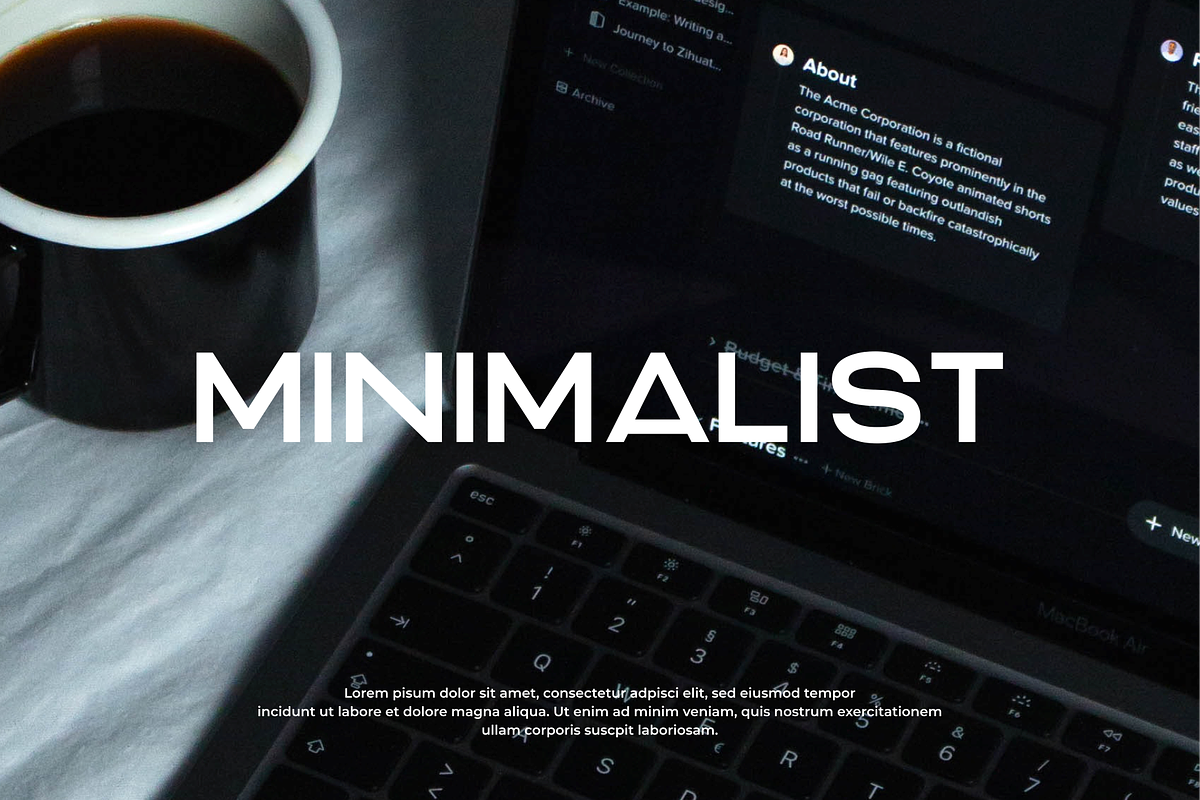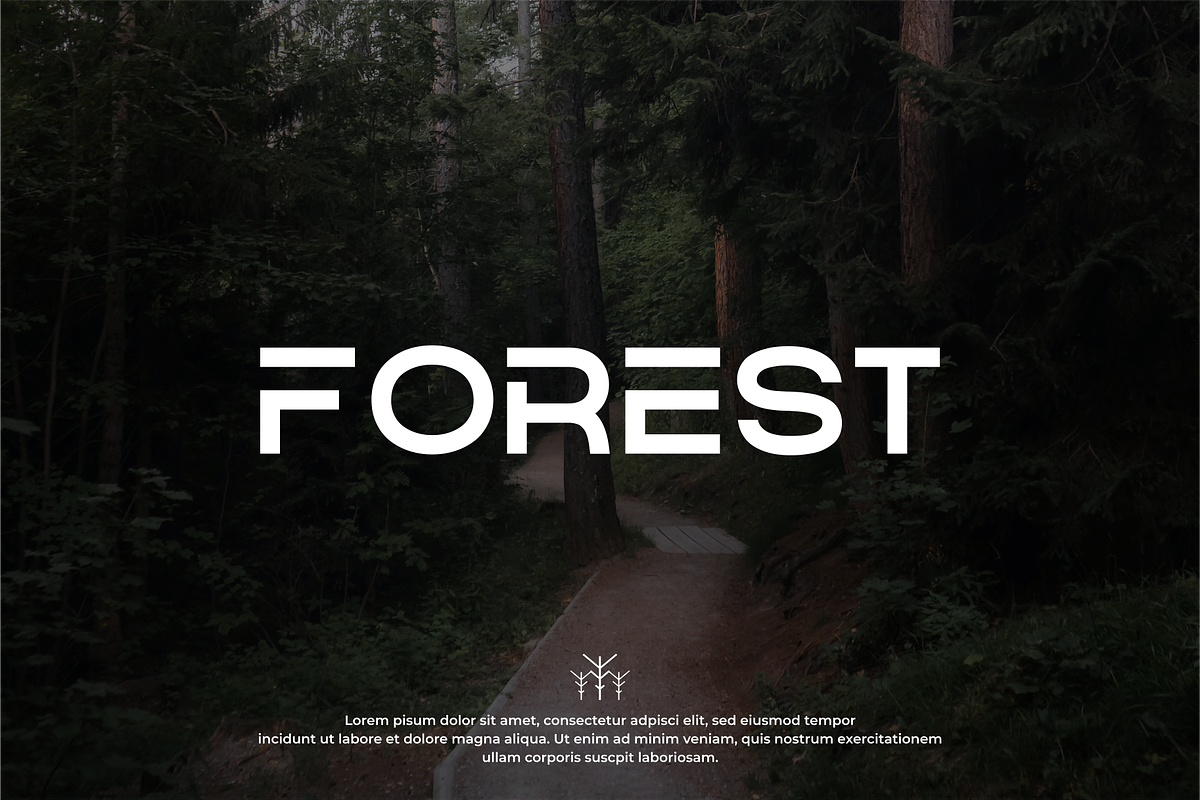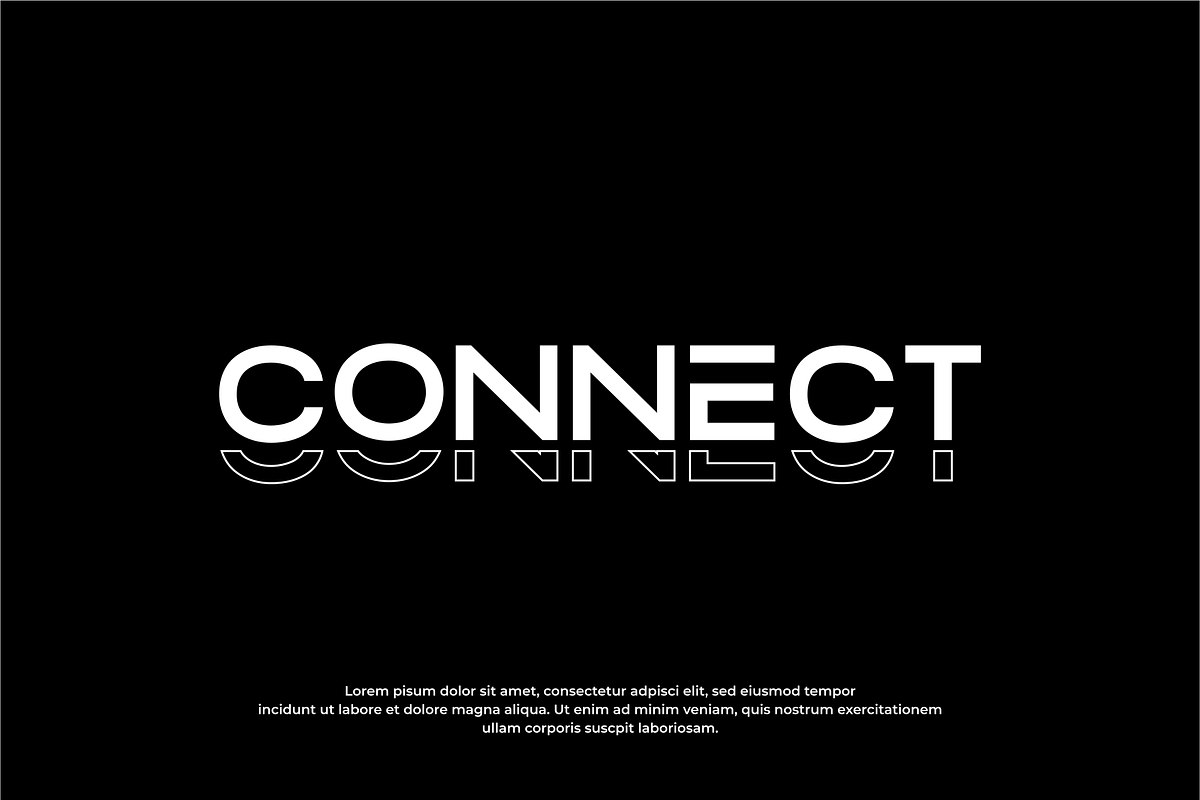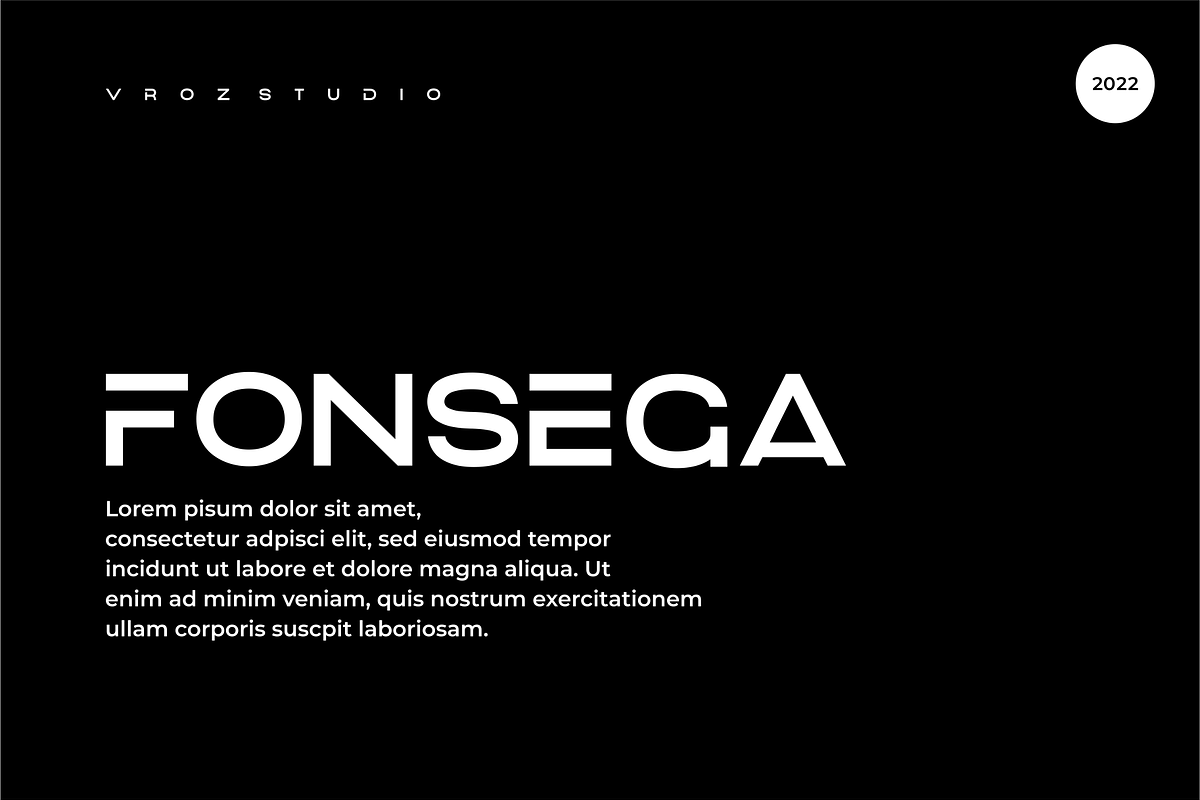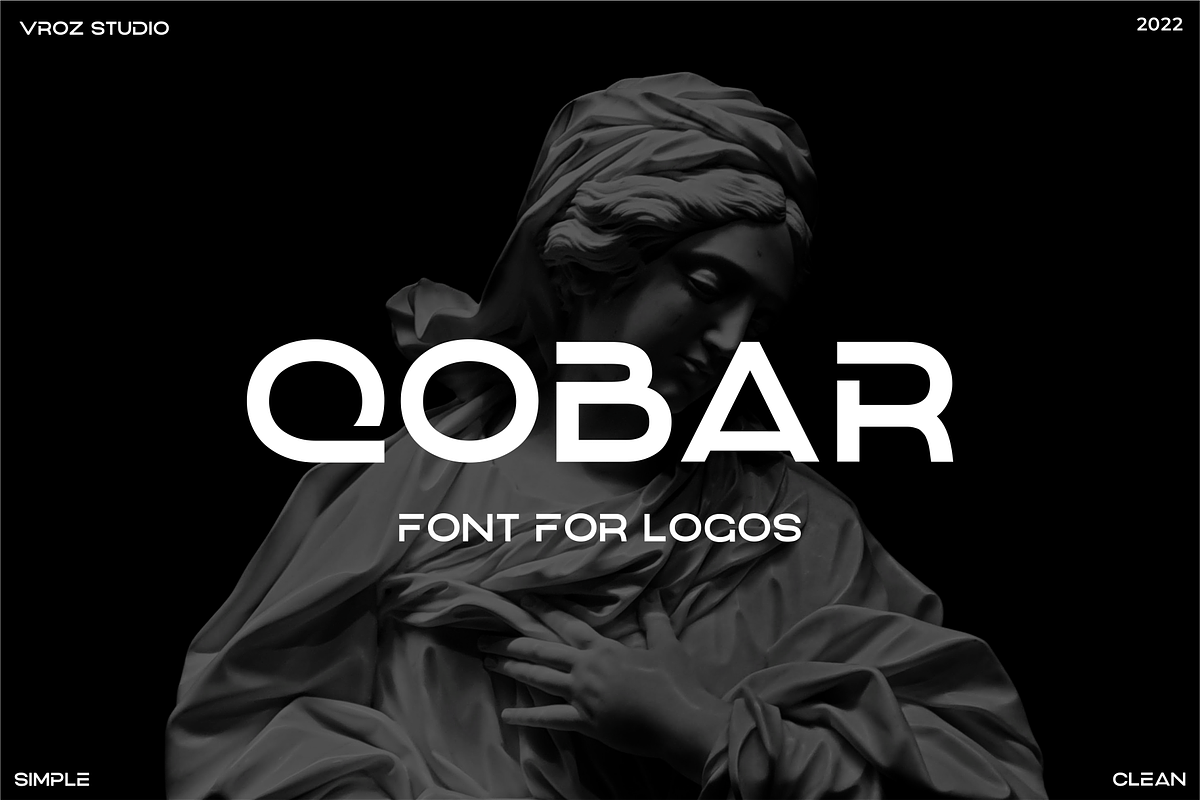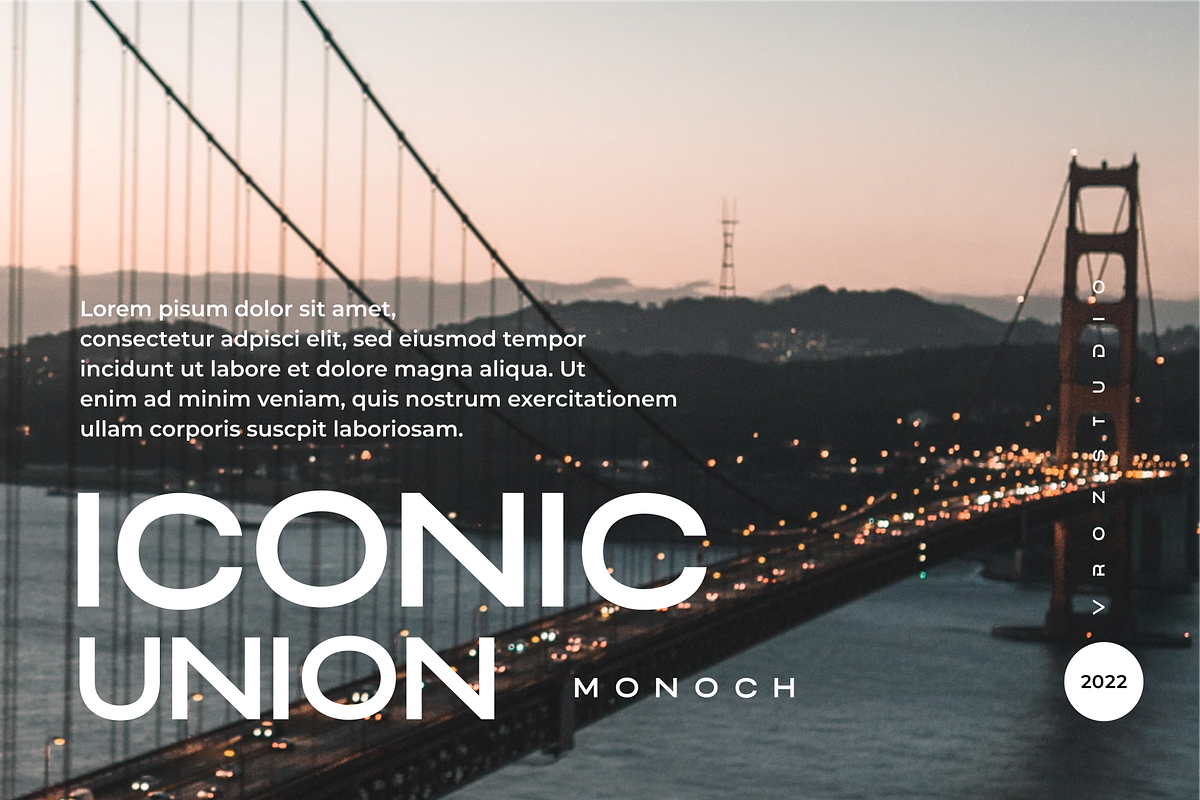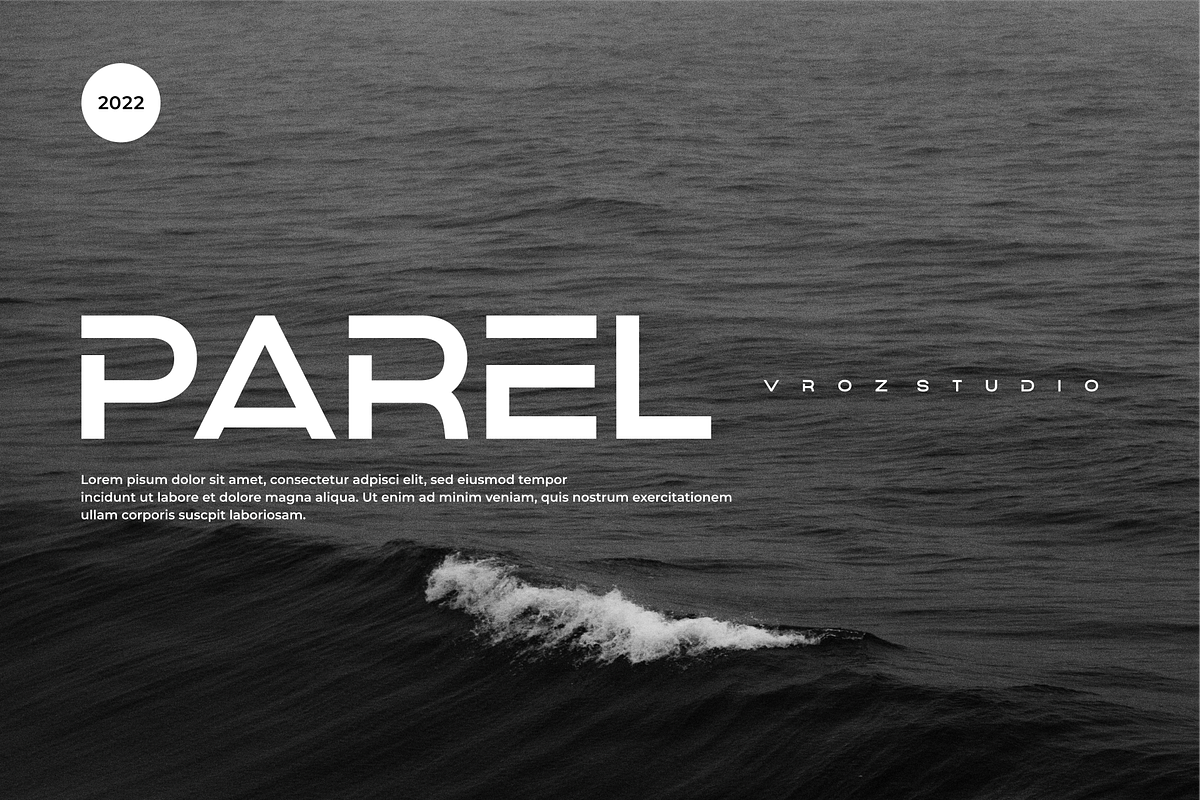
QOBAR - font for logos
QOBAR is a new font for design of minimalistic logos. The font is suitable for creating word marks, titles, taglines. This font is perfect for those of you who like a minimalist and clean design